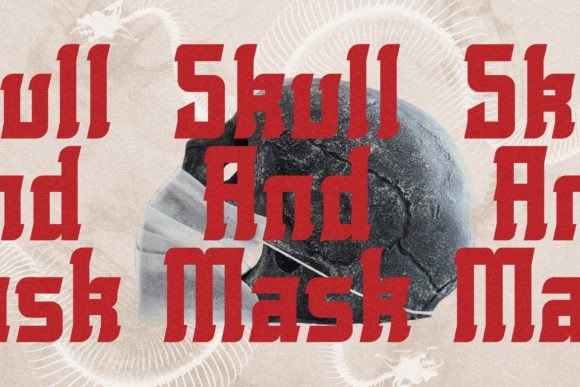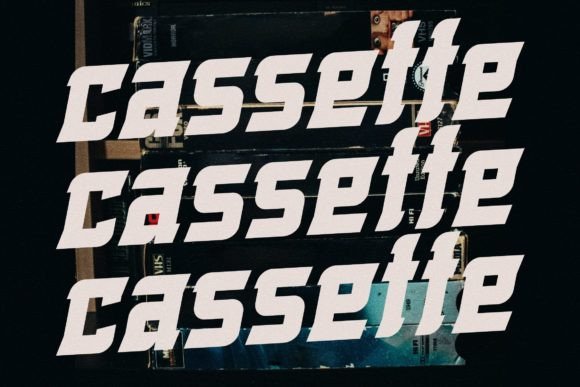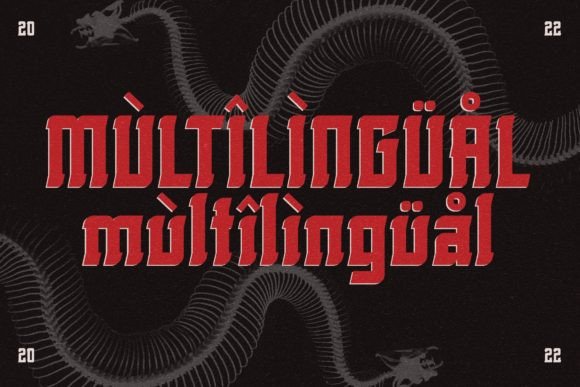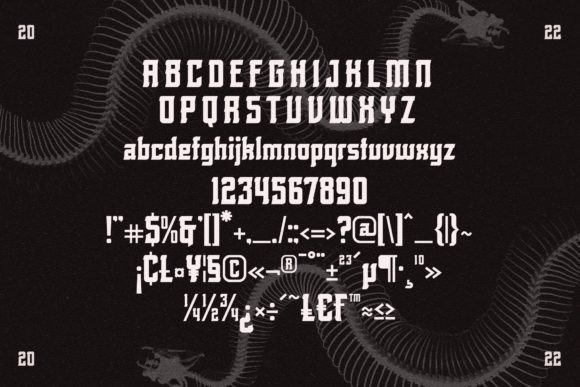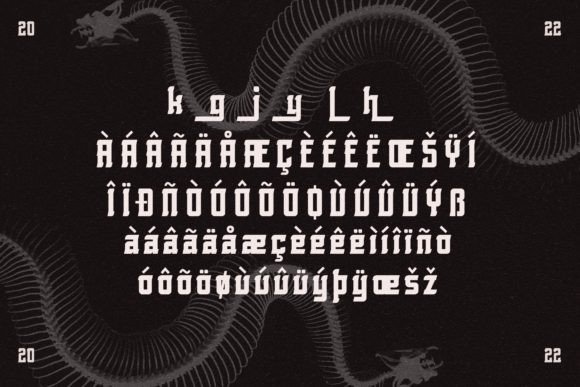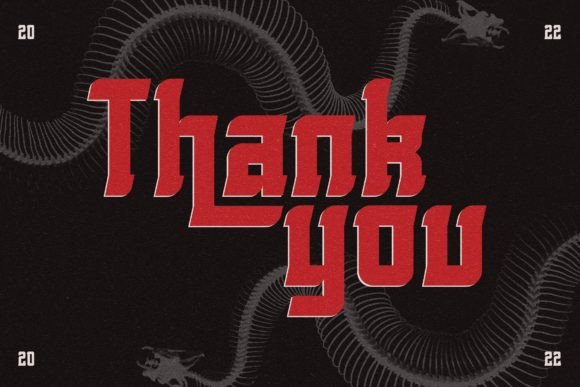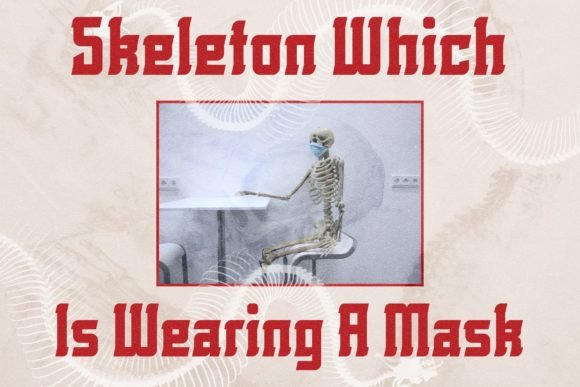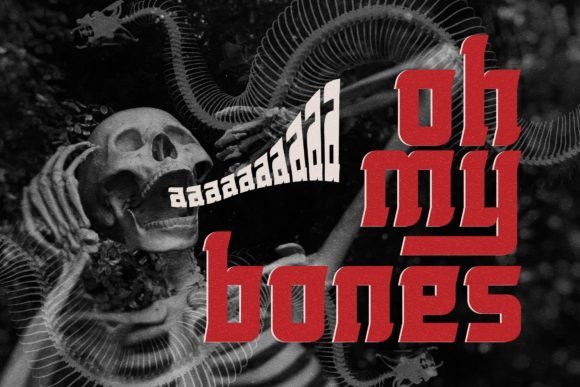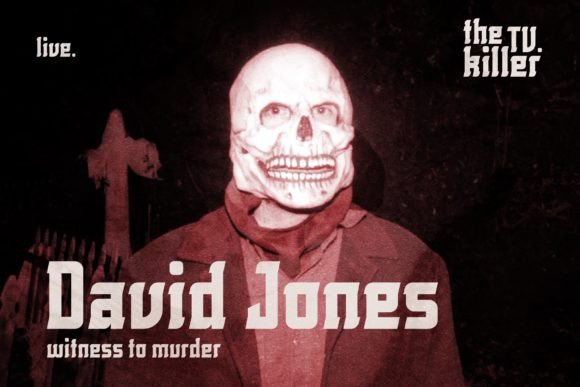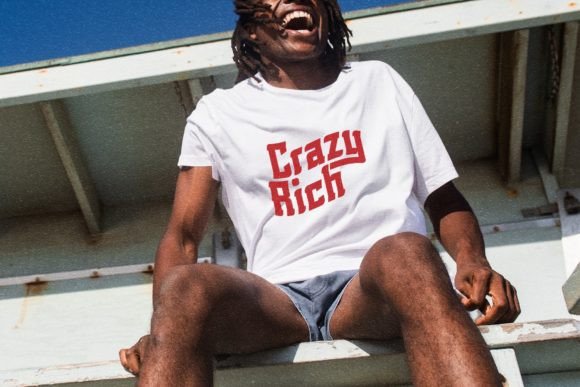
Rolling Bones
Rolling Bones: A Modern and Classic Slab Serif Font
Rolling Bones is a modern and classic slab serif font with a unique style and contemporary look. This typeface is perfect for creating elegant and luxury logos, book or movie title designs, fashion brands, magazine layouts, clothing designs, lettering, quotes, and much more.
Key Features of Rolling Bones
• Modern Design: Offers a contemporary look while maintaining classic slab serif elements.
• Unique Style: Features distinctive characteristics that set it apart from other slab serif fonts.
• Versatile Application: Ideal for both print and digital media projects.
• Elegant Appearance: Suitable for luxury and high-end design projects.
Ideal Uses for Rolling Bones
Rolling Bones’ unique characteristics make it particularly well-suited for:
When incorporating Rolling Bones into your designs, consider these tips:
• Use for headlines or short blocks of text to showcase its unique style.
• Utilize its elegant appearance to enhance luxury and high-end designs.
Rolling Bones is an excellent choice for designers looking to add a modern and classic slab serif font to their typographic toolkit. Its ability to create elegant and luxury designs makes it stand out in the world of typography. Whether you’re working on fashion branding, creating layouts for magazine covers, or developing content that requires a touch of sophistication, Rolling Bones offers the perfect blend of style and functionality.
Furthermore, Rolling Bones’ unique design allows it to shine in various contexts. From contemporary designs with a classic twist to more traditional layouts that need a touch of modernity, this font can elevate your projects. Its striking yet functional style works particularly well in designs that require a thoughtful and engaging mood.
In conclusion, Rolling Bones is a font that truly captures the essence of modern elegance and impact in typography. Its ability to work well in both minimalist projects and more elaborate layouts showcases its flexibility. For those looking to add a touch of unique charm to their work, Rolling Bones can enhance themed creations with its distinctive style. It’s the perfect choice for designers seeking to make a strong, stylish impact across a wide range of creative projects.